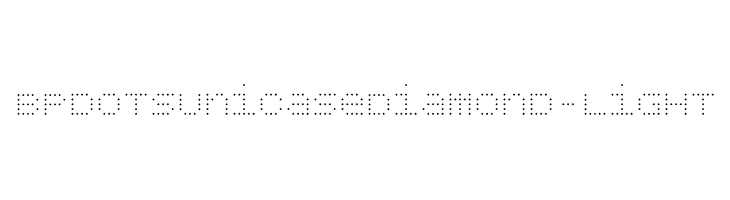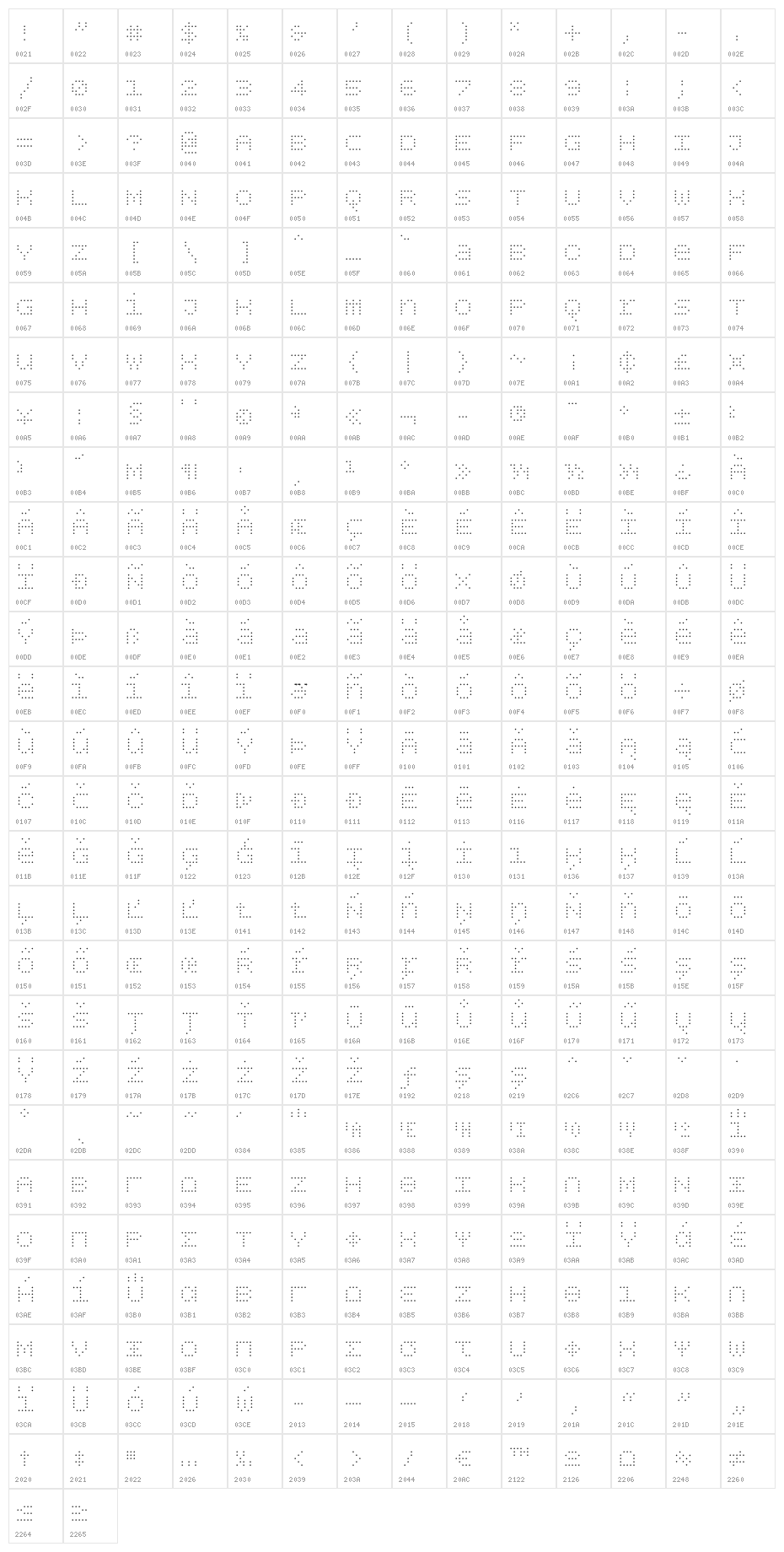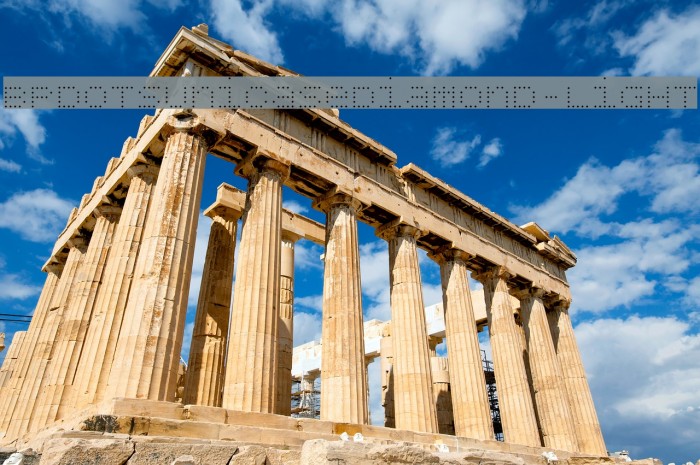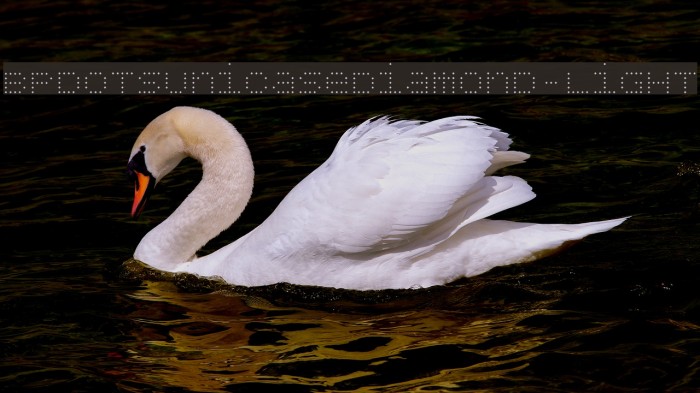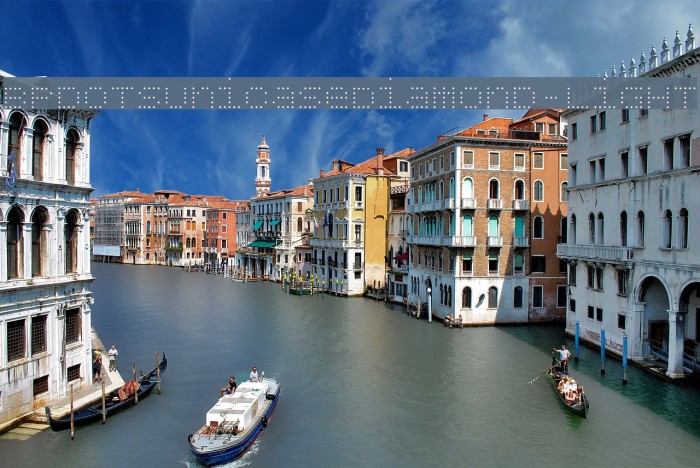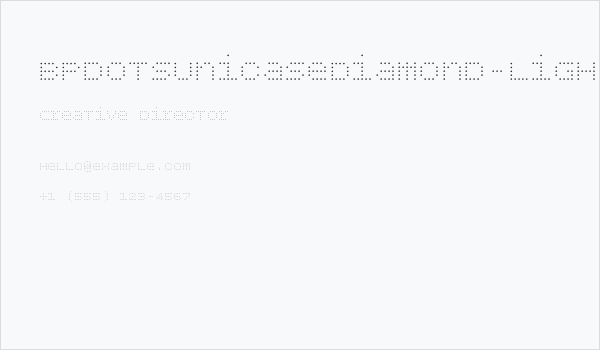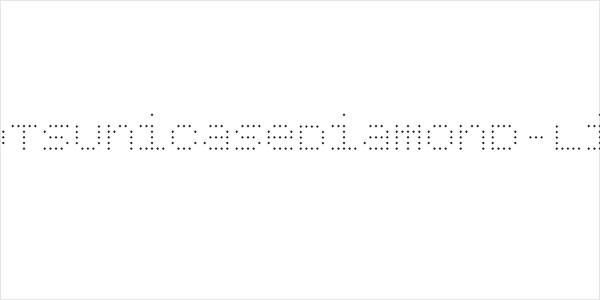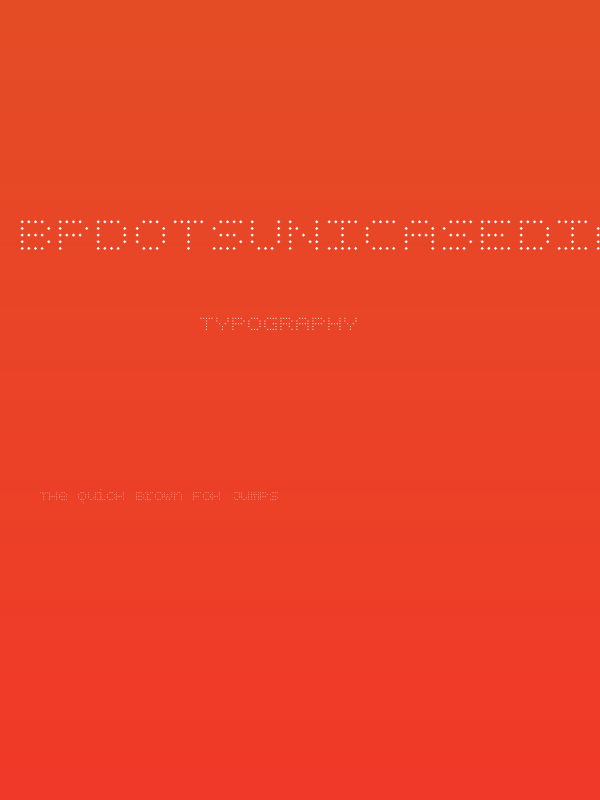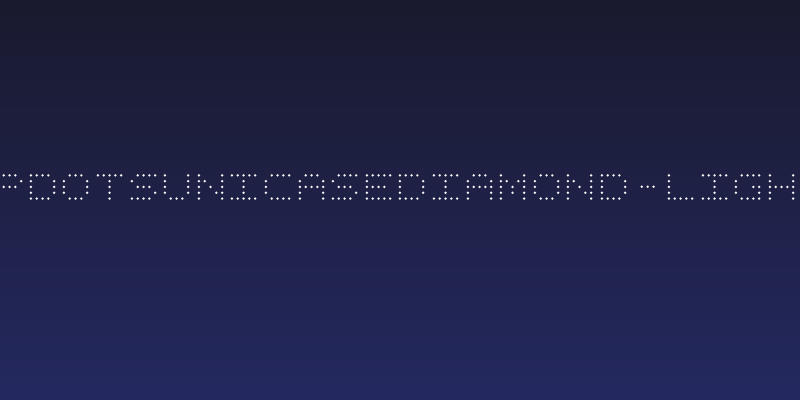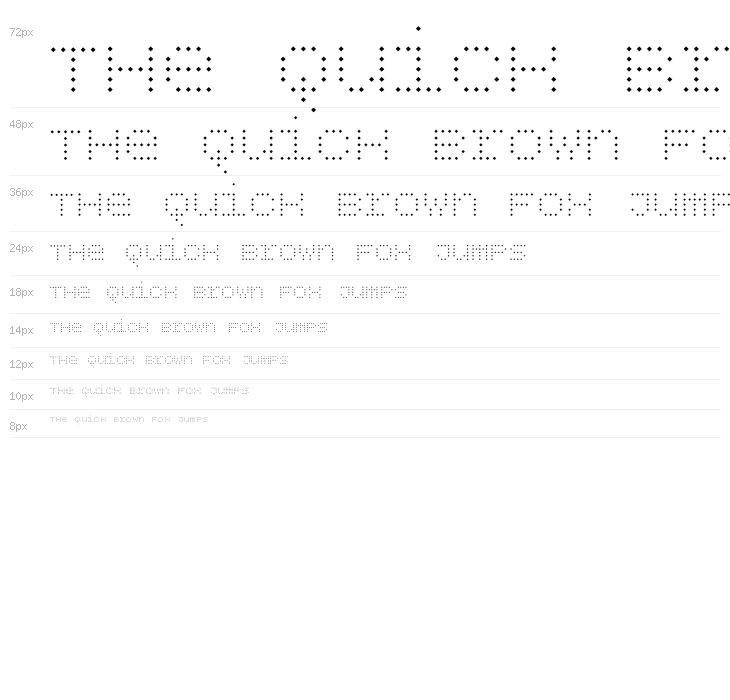
BPdotsUnicaseDiamond-Light Font
BPdotsUnicaseDiamond-Light Description
This font features a unique dotted design, where each character is composed of small, evenly spaced dots. The style is geometric and uniform, giving it a modern and digital appearance. The uppercase and lowercase letters maintain a consistent height, contributing to a unicase effect. Numbers and special characters follow the same dotted pattern, ensuring a cohesive look across all elements. The font's light weight and airy structure make it suitable for creative and tech-oriented projects.
| Use Case | Logos, Headlines, Digital displays |
| Proposed Projects | Ideal for digital displays, tech branding, futuristic designs, and creative posters. |